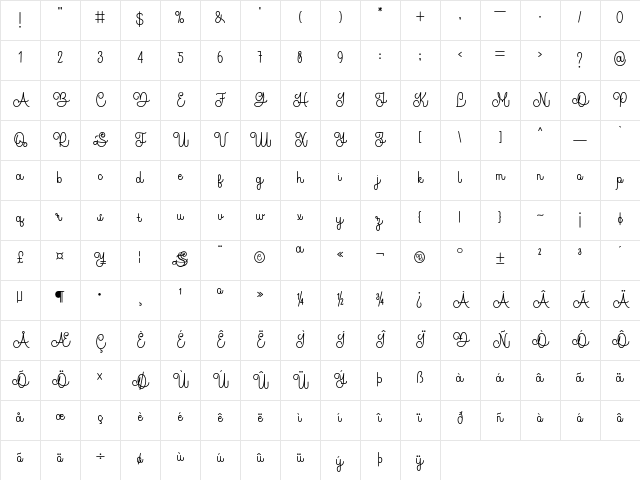
Complete The Revolution Regular glyph index. Displaying only characters natively supported by The Revolution Regular font.
The Revolution is a composed and adaptable typeface that performs quietly and consistently across a wide range of design contexts.